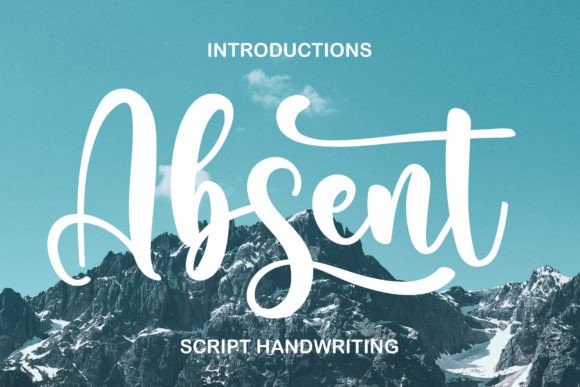
Dive into the world of sophistication and elegance with Absent, an exquisite handwritten font family, meticulously crafted by the talented YanStudio.
Unleash your creativity and add a touch of charm to your next project. Whether it's a heartfelt greeting card, a captivating headline, a stylish brand logo, or an enticing product packaging design, Absent is the perfect choice to make your creations shine.
With its graceful curves and enchanting strokes, Absent exudes a timeless beauty that will captivate your audience. Its effortless flow and natural feel bring a sense of authenticity and warmth to any design.
Embrace the versatility of Absent and let your imagination run wild. Experiment with different sizes, colors, and combinations to create visuals that resonate with your unique style and vision.
Gone are the days of ordinary fonts. With Absent, you have the power to transform your designs into captivating masterpieces that leave a lasting impression.
Don't settle for mediocre. Choose Absent and embark on a journey of artistic expression and boundless creativity.